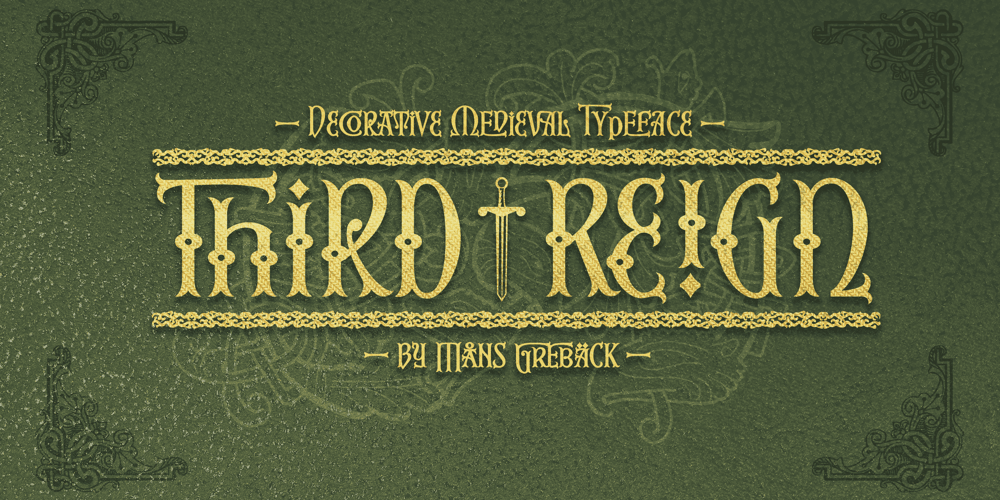
Third Reign Font Family was designed by Måns Grebäck and published by Mans Greback. Third Reign contains 2 styles and family package options. Third Reign is a decorative medieval typeface. With braids and pearls, this swirly typeface of extreme variability brings us to the golden times of epic knight sagas. Third Reign is the typeface of a Middle Age queen or a viking ruler.Use it for a Middle Ages game, a fantasy headline, or as a logotype for anything of historical theme. With usage in any modern software, the letters will automatically overlap and embrace in an elegant way.To make heraldic symbols, copy these icons: 🐉 🐎 👑 🗡 🦁 🦅 🦌 + ♖ × ✝ ⚓ * ⚔ † ‡ Alternatively write %A %B %C … etc to create the heraldry. (Download required.)Dragon, Horse, Crown, Sword, Eagle, Deer, Cross, Anchor are some of the logos. Use [ ] for side borders. Example: [Magic⚔Thrones]The Third Reign font family consists of two styles:The decorative Border style, and the plain Regular style.The font is built with advanced OpenType functionality and has a guaranteed top-notch quality, containing stylistic and contextual alternates, ligatures and more features; all to give you full control and customizability. It has extensive lingual support, covering Greek and Cyrillic, as well as all Latin-based languages, from North Europe to South Africa, from America to South-East Asia. It contains all characters and symbols you’ll ever need, including all punctuation and numbers.